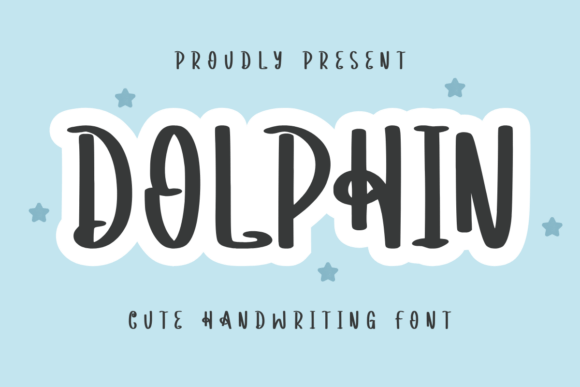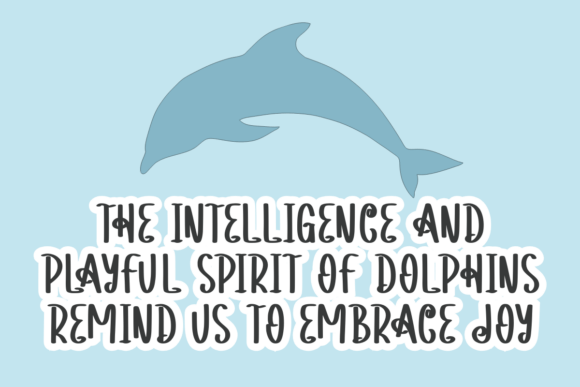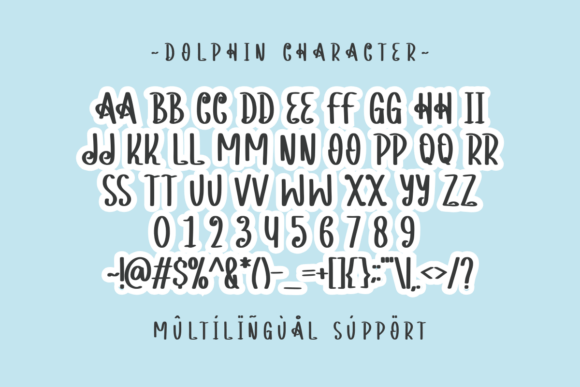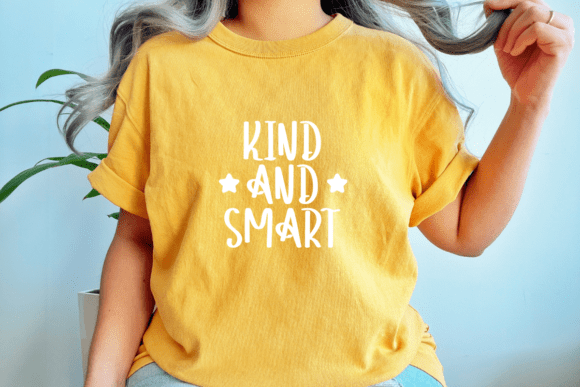
Dolphin Font: A Playful Handwritten Font for Cute DIY & Cricut Crafts
About the Dolphin Font
Get ready to be inspired by Dolphin Font, a fresh and dynamic typeface for modern creators. Dolphin is a cute and playful handwritten font, perfect for children’s projects and fun crafting ideas. With its quirky curves and cheerful style, Dolphin adds a joyful splash to your creative work.
Dolphin’s playful energy makes it ideal for children’s books, greeting cards, and branding for businesses targeting a young demographic. It works exceptionally well in headlines, short slogans, and playful packaging designs. However, its informal nature makes it unsuitable for body text or situations requiring high readability, such as websites or user interfaces.
Consider pairing Dolphin with a clean sans-serif like Open Sans for a balanced contrast, or a more geometric sans-serif for a modern feel. For a touch of elegance, a simple serif typeface such as Lora could complement its whimsical charm. Avoid pairing it with overly ornate or heavily stylized fonts which might clash with its lighthearted character.
Dolphin’s overall personality is cheerful and friendly, conveying a sense of fun and approachability. Its informal nature makes it unsuitable for formal contexts but perfectly suited to projects needing a lighthearted and approachable feel.